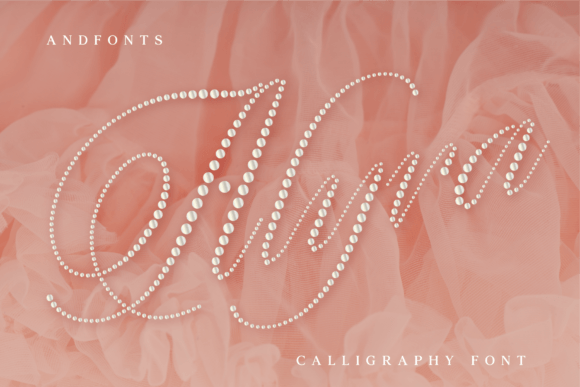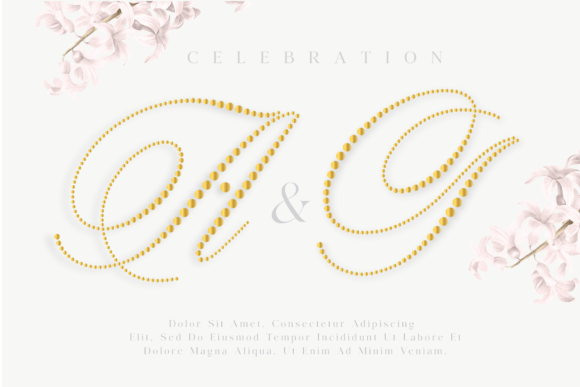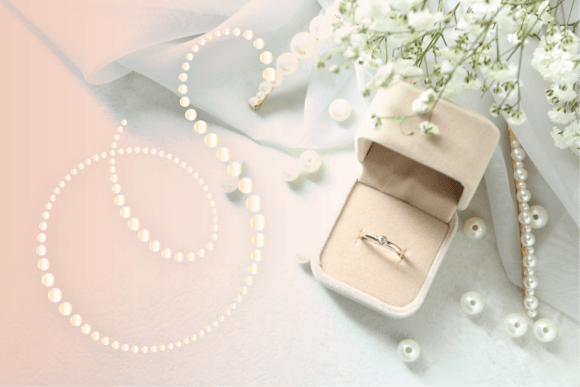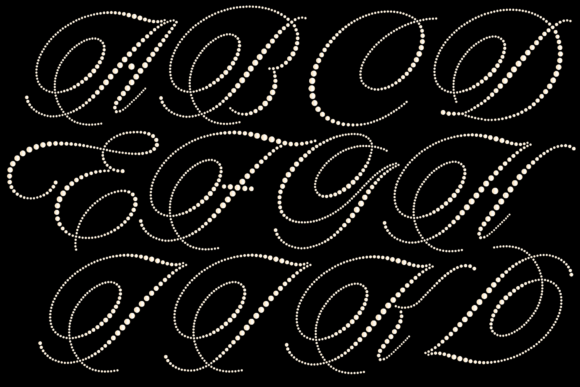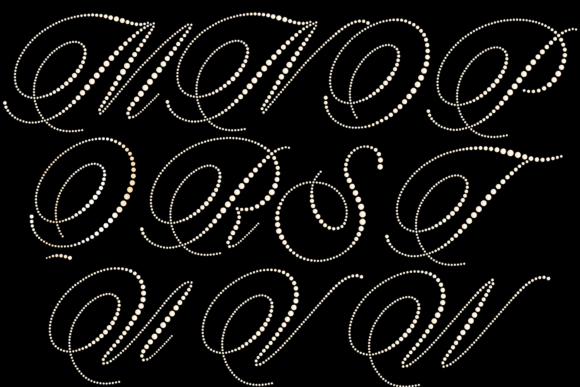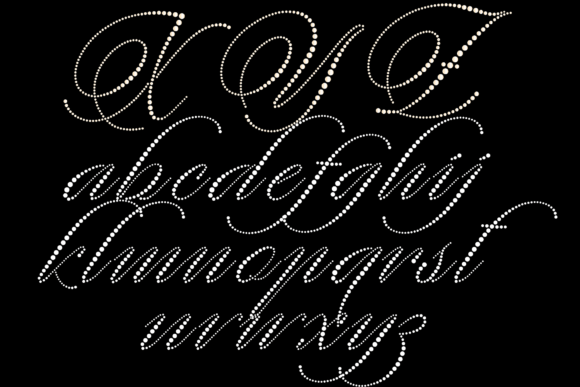
Alyra Font: Elevate Your Designs with Elegance and Sophistication
In the world of typography, few fonts manage to capture the essence of elegance, richness, and sophistication as effortlessly as Alyra. This unique calligraphy font is a masterpiece of design, combining the fluidity of traditional calligraphy with a distinct twist that sets it apart from the rest. Created entirely out of dots, Alyra is not just a font; it’s an art form that brings a new level of refinement and luxury to any design project.
The Unique Design of Alyra
Alyra’s design is where it truly shines. Unlike traditional calligraphy fonts that are characterized by flowing lines and curves, Alyra takes a different approach by using dots. These dots are meticulously placed to form each letter, creating a beautiful, flowing script that is both eye-catching and easy to read. The strategic placement of these dots results in elegant curves and graceful lines, giving Alyra a luxurious feel that is hard to match.
One of the standout features of Alyra is its versatility. This font is perfect for a wide range of design projects. Whether you’re working on wedding invitations, stationery, logos, branding, or packaging, Alyra brings a touch of elegance and sophistication that can elevate your designs to new heights. Its adaptability makes it a favorite among designers and creatives who are looking for a font that can add a unique flair to their work.
Perfect for High-End Products and Services
Alyra’s rich, luxurious feel makes it an ideal choice for high-end products and services. In today’s competitive market, branding is everything, and the right font can make a significant difference. Alyra adds a level of sophistication and refinement that can help your brand stand out. Whether you’re designing a logo, creating a brand identity, or packaging a luxury product, Alyra can help convey a sense of quality and exclusivity.
Alyra in Design Projects
Incorporating Alyra into your design projects is easy, thanks to its compatibility with various design software. Designers can use Alyra in digital projects, such as website design and social media graphics, as well as in print projects, like brochures, business cards, and posters. The font’s clarity and readability ensure that it looks great in both large and small sizes, making it a versatile tool for any designer.
Why Designers and Creatives Love Alyra
Designers and creatives love Alyra for several reasons. First, its unique design offers something fresh and new, allowing designers to create work that stands out. Second, its elegance and sophistication make it perfect for projects where a high-end feel is desired. Finally, Alyra’s versatility and ease of use make it a practical choice for a wide range of projects.
Getting the Most Out of Alyra
To truly get the most out of Alyra, experiment with different sizes, colors, and design combinations. The font’s luxury feel can be enhanced with metallic colors or rich textures, while its elegance can be highlighted through careful spacing and layout. Don’t be afraid to play around and see how Alyra can be integrated into your designs in innovative ways.
Alyra is more than just a calligraphy font; it’s a design statement. Its unique dot-based design, combined with its elegance, richness, and sophistication, makes it a valuable tool for designers and creatives. Whether you’re looking to add a touch of luxury to a high-end brand or simply want to create something beautiful and eye-catching, Alyra is the perfect choice. With its versatility, ease of use, and stunning design, Alyra is sure to make a statement in any design project.
In conclusion, Alyra is a beautiful, versatile calligraphy font that brings a unique blend of elegance, richness, and sophistication to any design project. Its dot-based design is not only visually striking but also highly adaptable, making it suitable for a wide range of applications. For designers and creatives looking for a font that offers something new and exciting, Alyra is definitely worth exploring.